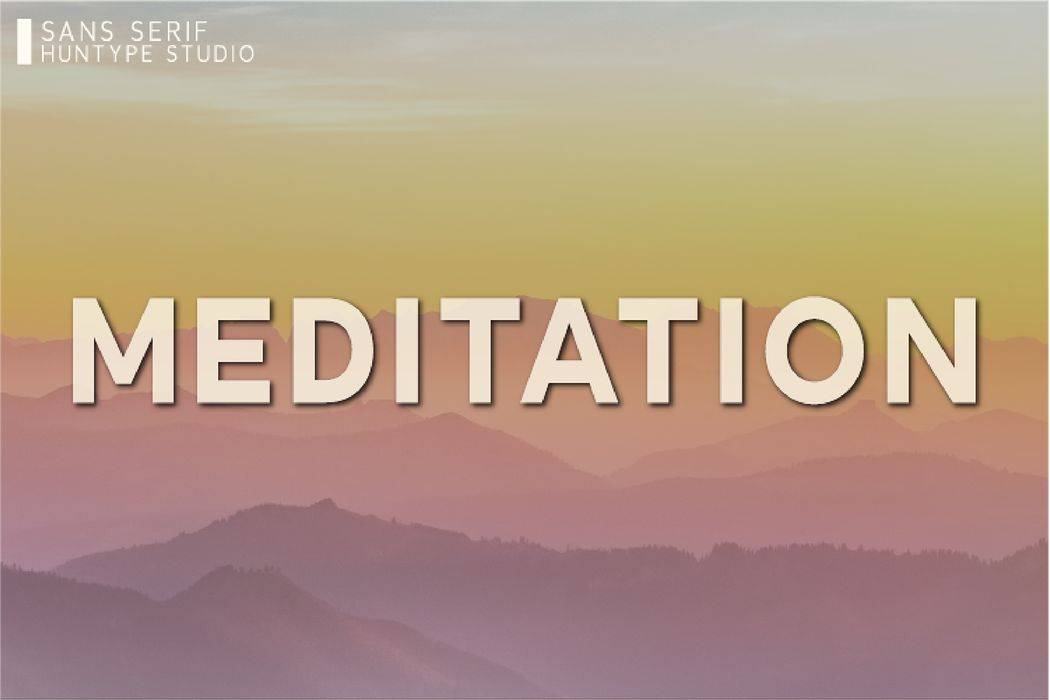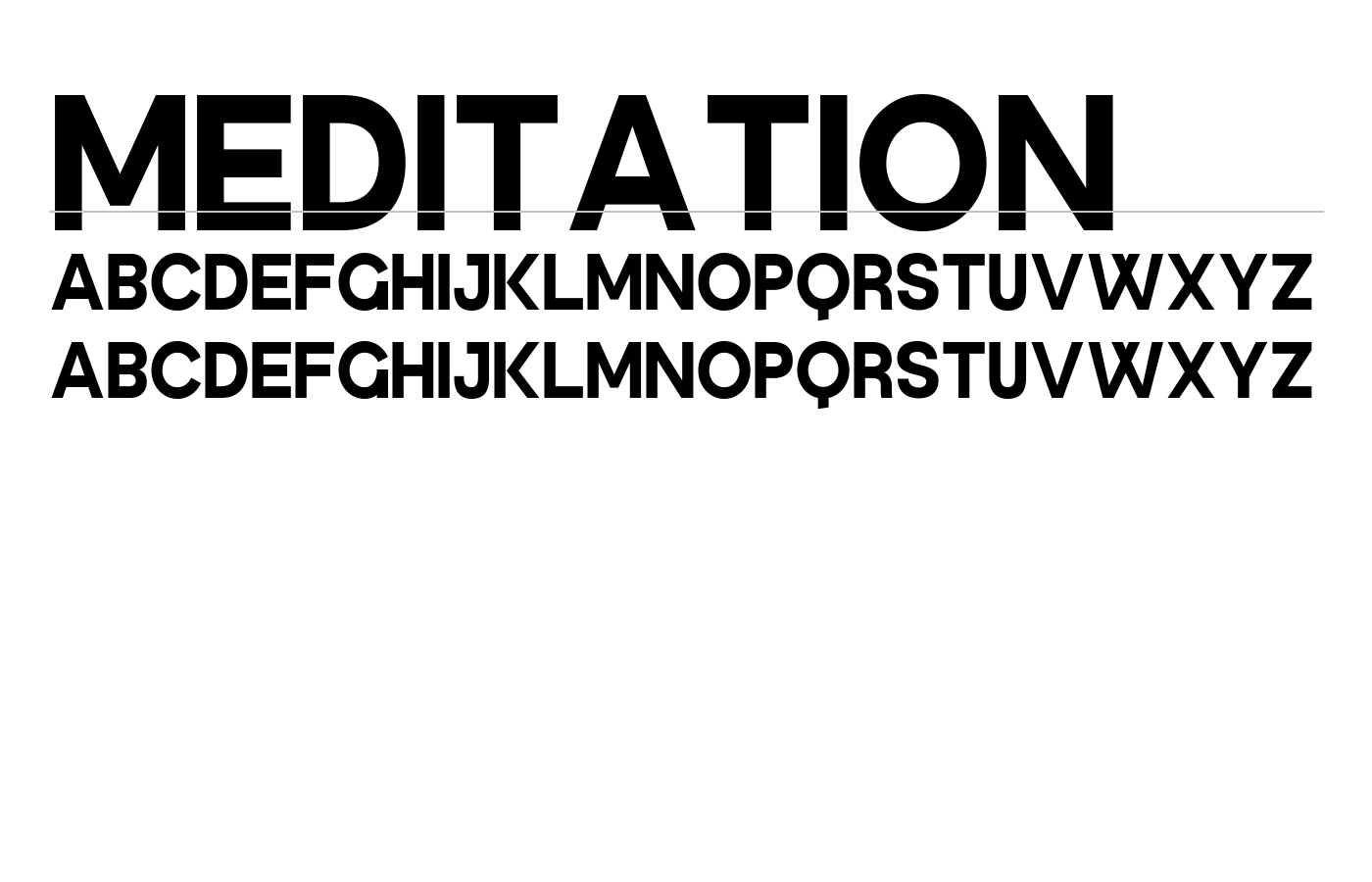
Meditation Font is a bold, geometric sans serif typeface that stands out with its strong, clean lines and generous x-height, giving it a modern and confident look. Its tight spacing and sharp, uniform strokes make it ideal for impactful headlines, branding, and logos where clarity and presence are essential. This font communicates strength and professionalism while maintaining a straightforward and approachable character.
Meditation Font
About Meditation Font